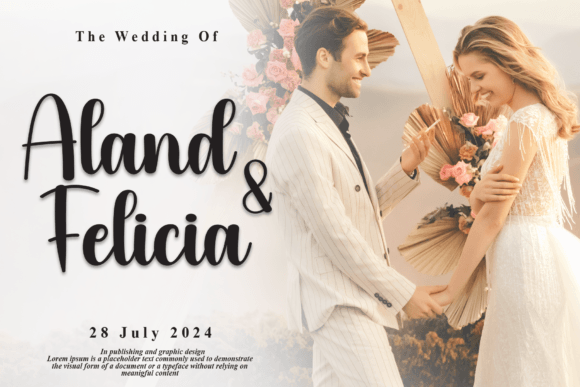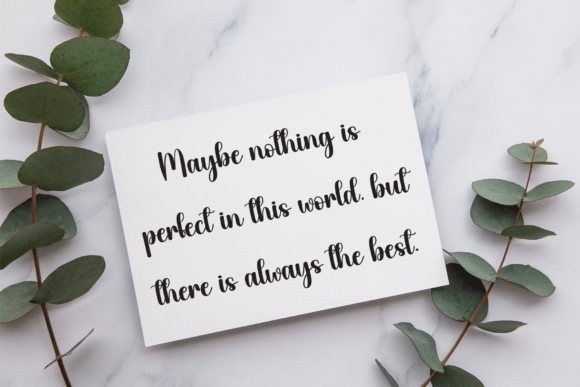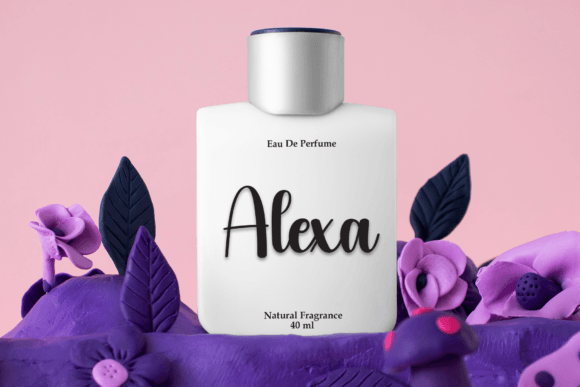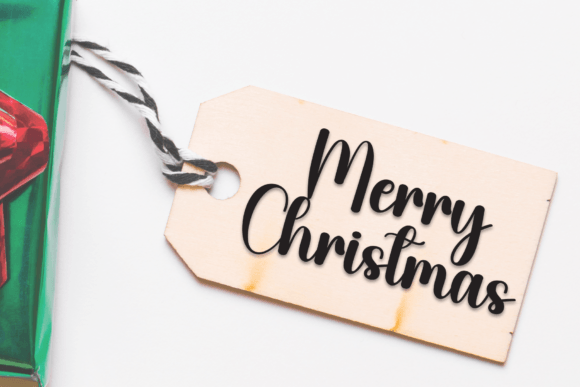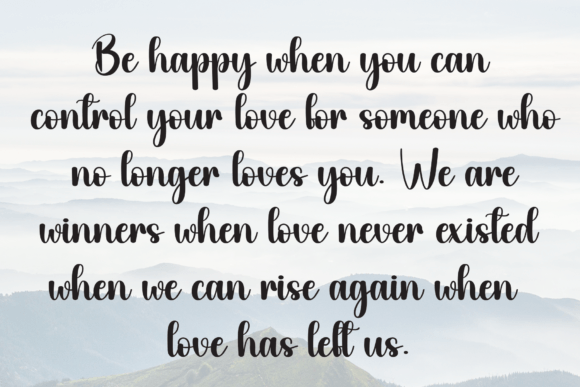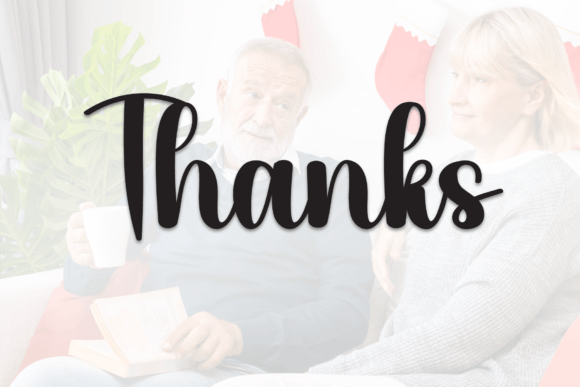
Introducing Grandma Font: The Perfect Blend of Whimsy and Charm
Are you tired of using the same old fonts in your designs? Look no further! We’re excited to introduce Grandma Font, a jovial and approachable, hand-scripted display font that’s sure to add a playful twist to your creations. With its delightful balance of charm and whimsy, this font is perfect for designers and crafters looking to infuse fun and personality into their work.
The Story Behind Grandma Font
Grandma Font is more than just a font – it’s a reflection of warmth, love, and playfulness. Its hand-scripted design gives it a personal and intimate feel, making it perfect for projects that require a touch of humanity. Whether you’re creating wedding invitations, greeting cards, or any other artistic endeavor, Grandma Font is sure to bring a smile to your audience’s faces.
What Makes Grandma Font Special?
• Hand-scripted design: Grandma Font is carefully crafted to mimic the imperfections and uniqueness of handwriting, giving it a personal and relatable feel.
• Delightful balance of charm and whimsy: This font strikes the perfect balance between playfulness and sophistication, making it suitable for a wide range of projects.
• Perfect for creative projects: Grandma Font is ideal for designers and crafters who want to add a touch of personality to their work, from wedding invitations to greeting cards and beyond.
Use Cases for Grandma Font
Grandma Font is versatile and can be used in a variety of projects, including:
• Wedding Invitations: Add a touch of whimsy and romance to your wedding invitations with Grandma Font.
• Greeting Cards: Create expressive and heartfelt greeting cards that will make your recipients feel special.
• Artistic Endeavors: Use Grandma Font to add a playful twist to your artistic projects, such as illustrations, paintings, or digital art.
• Branding and Packaging: Infuse your brand with personality and whimsy using Grandma Font in your packaging and branding materials.
Tips for Using Grandma Font
To get the most out of Grandma Font, here are some tips to keep in mind:
• Mix and match: Combine Grandma Font with other fonts to create a unique and visually appealing design.
• Experiment with colors: Play around with different colors to find the perfect combination that complements your design.
• Don’t be afraid to get creative: Grandma Font is all about adding a touch of whimsy and personality to your designs, so don’t be afraid to think outside the box.